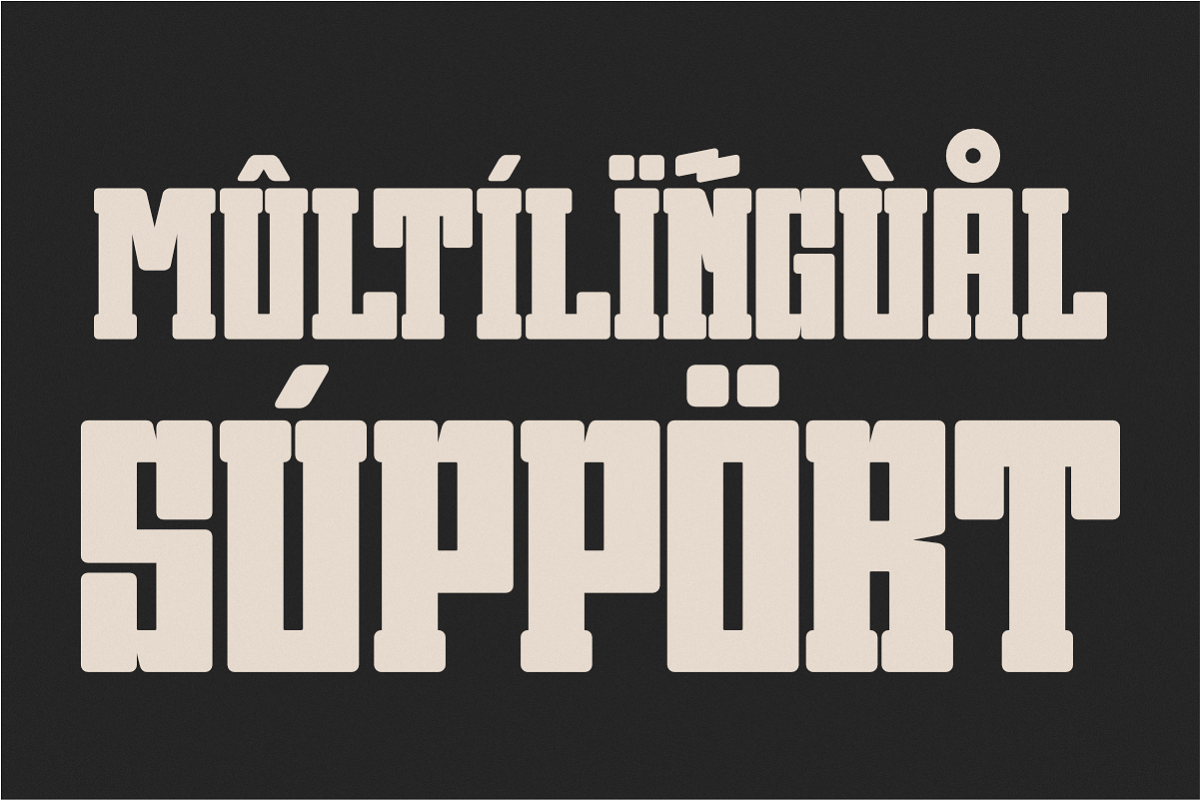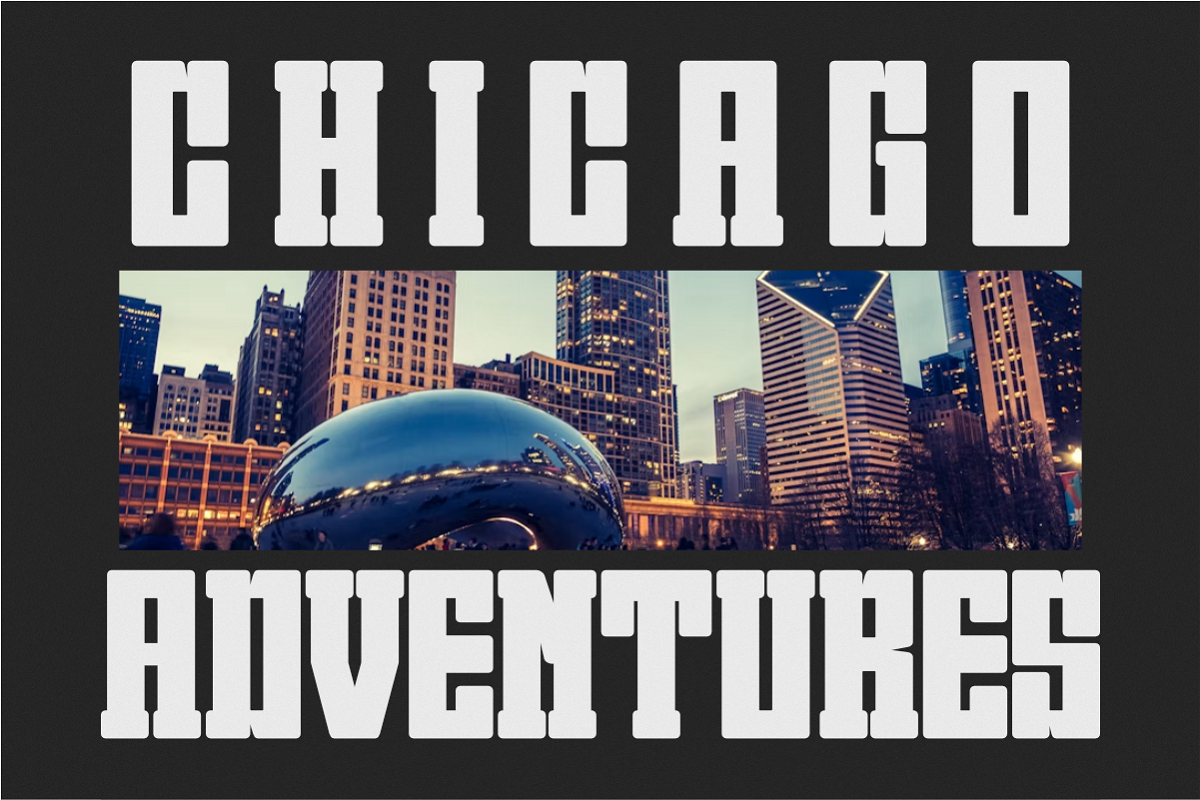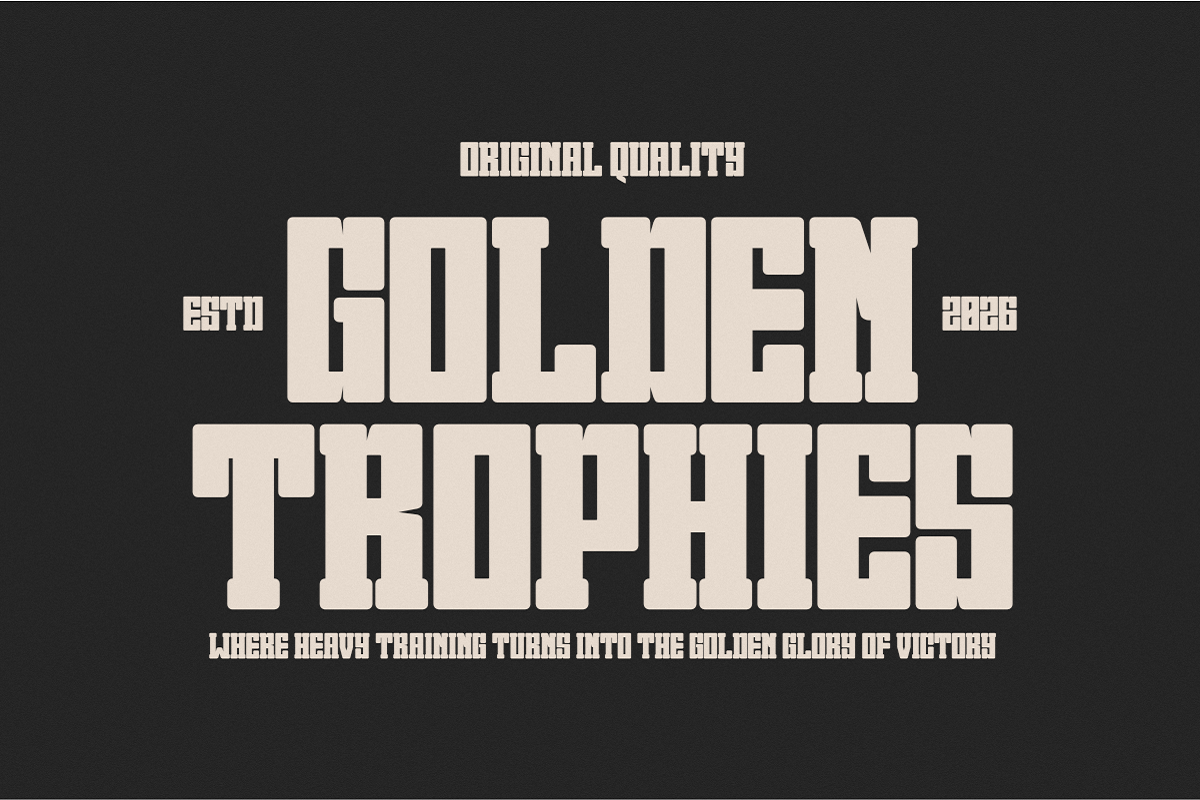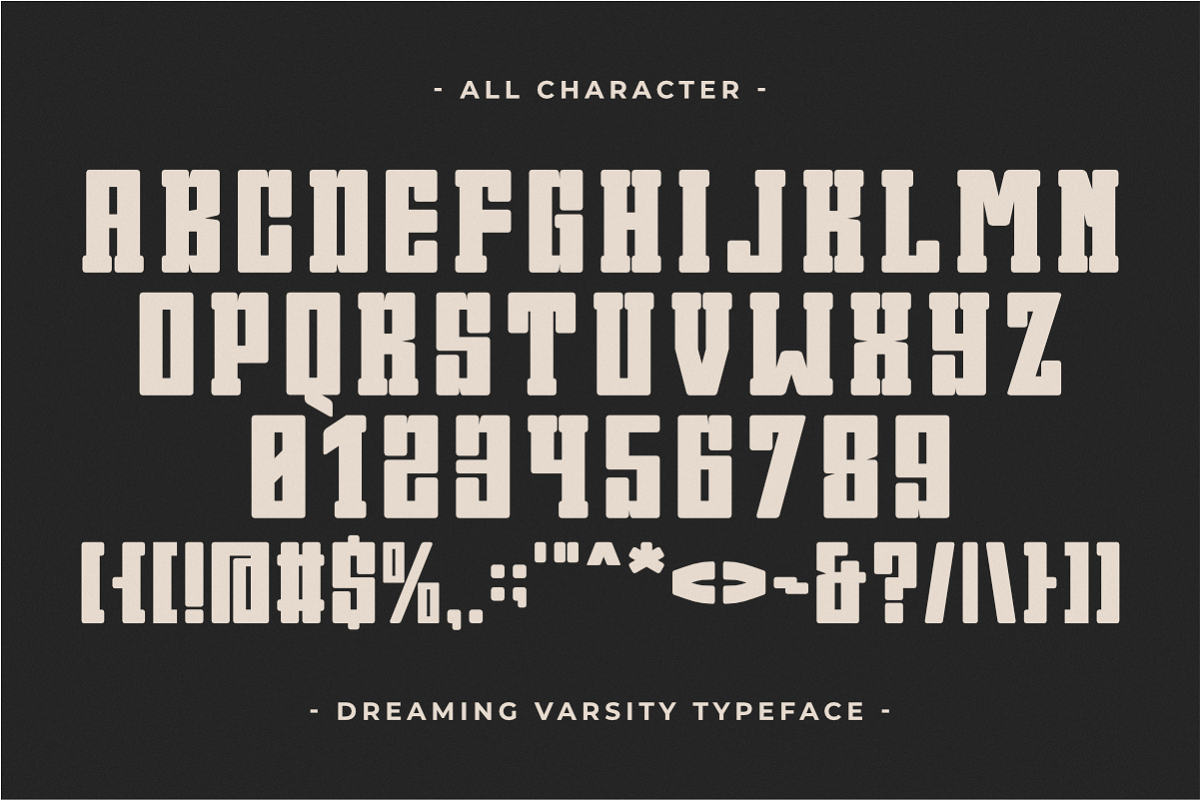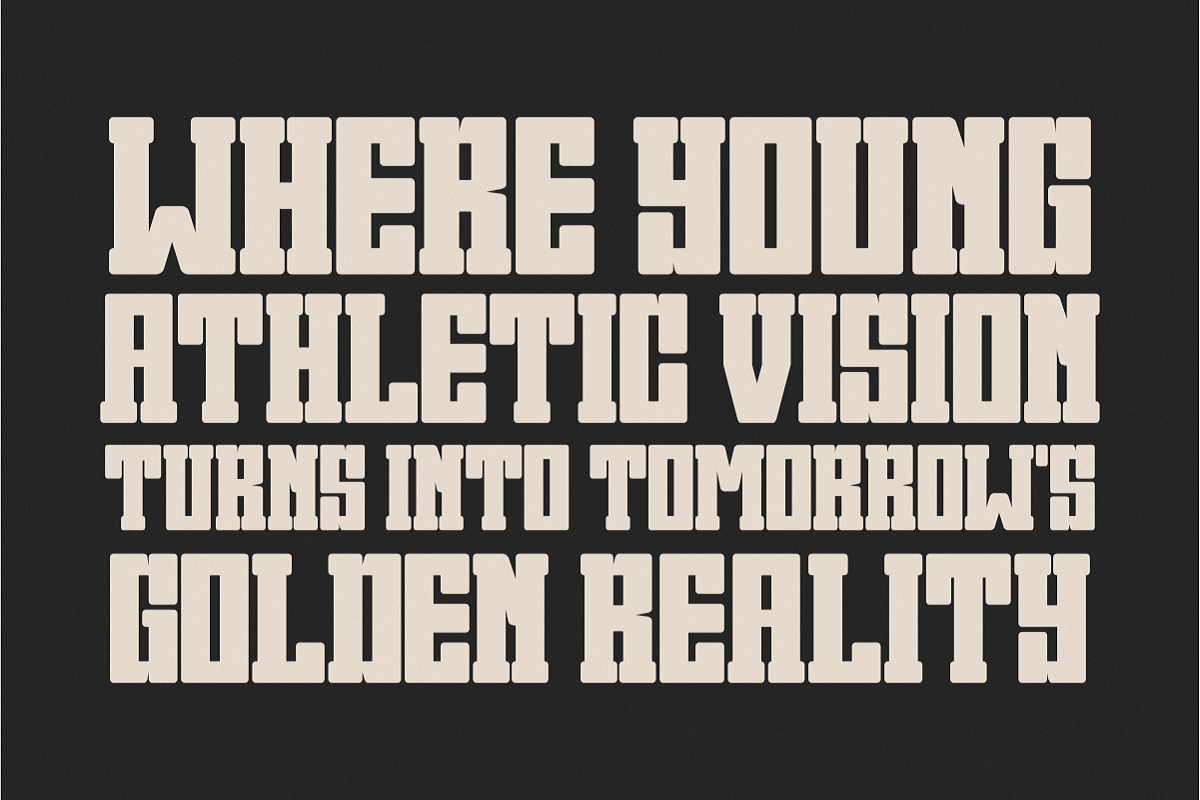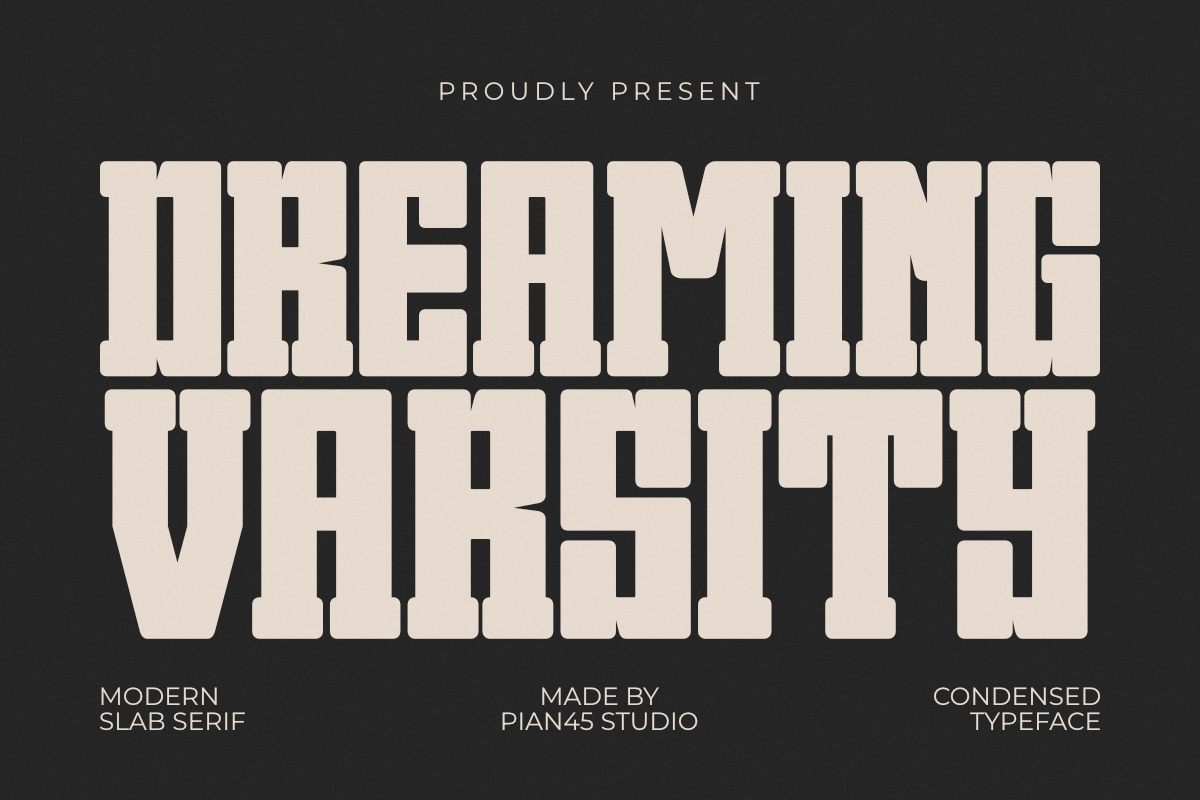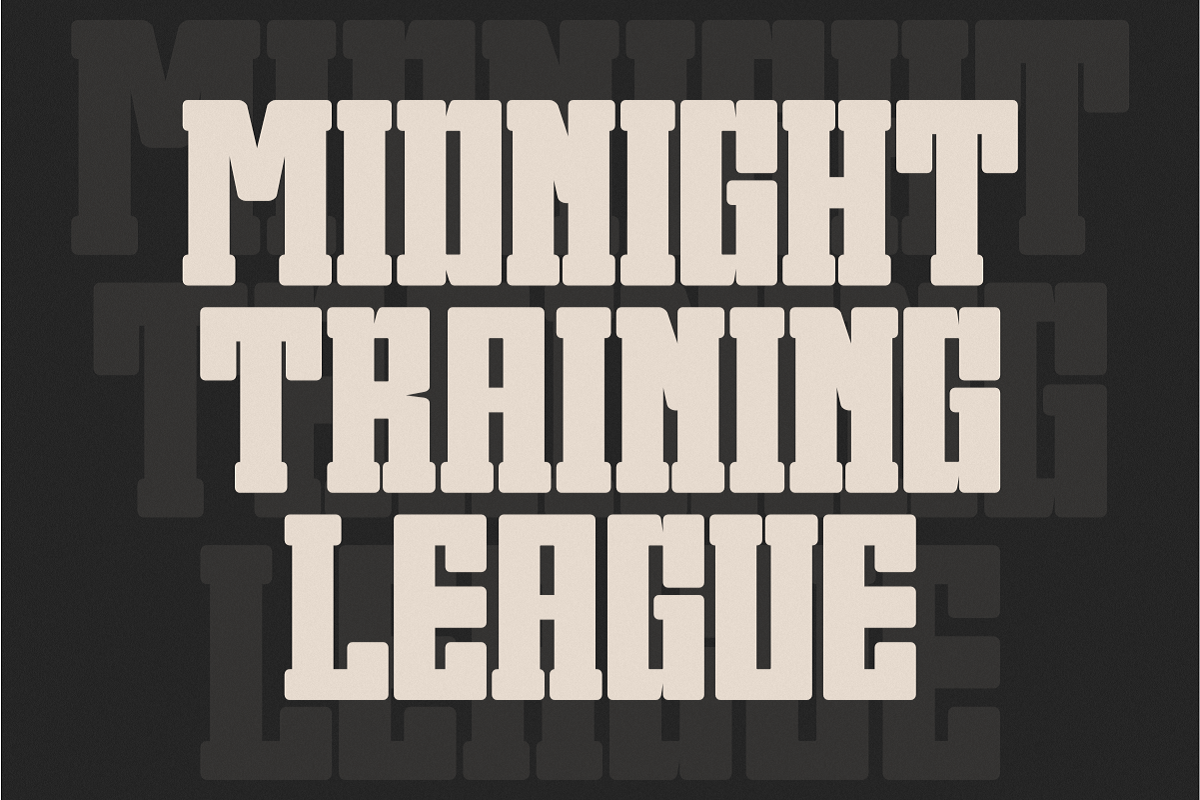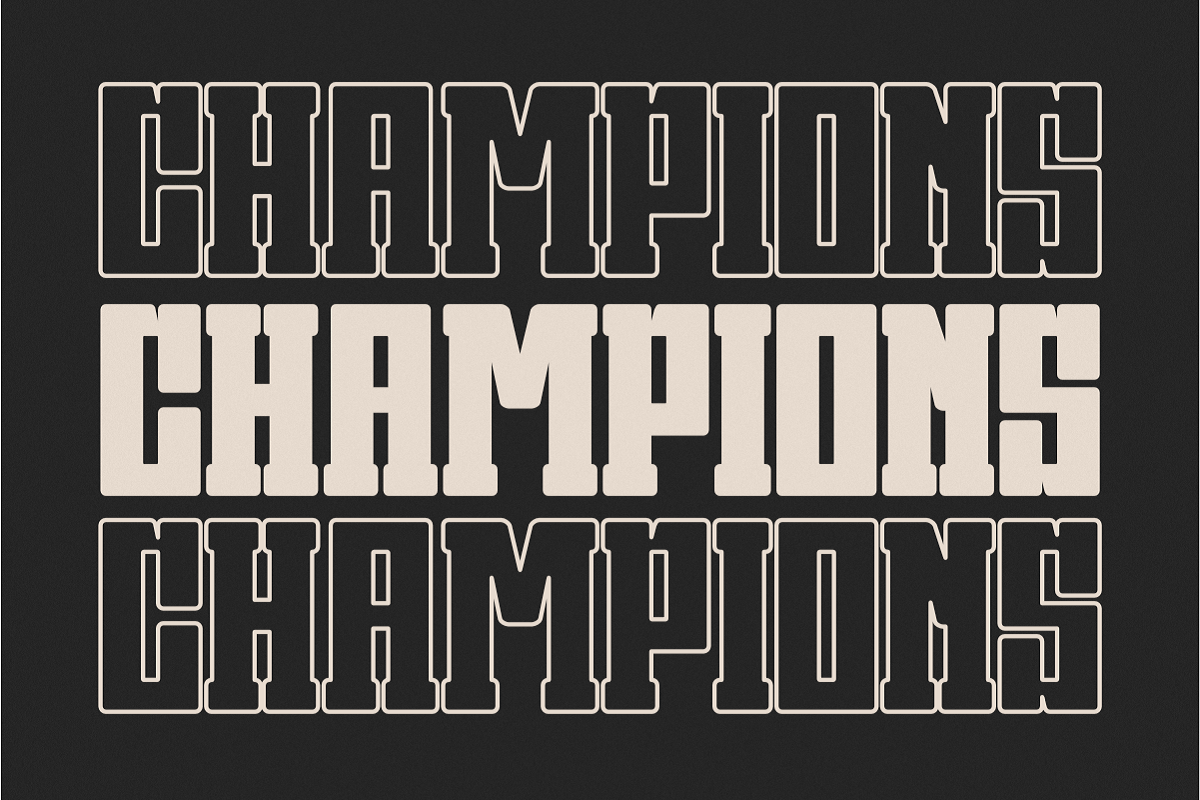
Dreaming Varsity - Condensed Slab
Dreaming Varsity is a striking Modern Condensed Slab Serif font that seamlessly combines classic athletic heritage with contemporary typography trends. Meticulously designed with strong, geometric block serifs and a tall, space-saving condensed typeface structure, this all-caps font is engineered to command attention. It serves as the ultimate choice for sports branding, varsity jackets, high-school team logos, and university-style apparel. Its bold layout and authoritative visual weight ensure maximum impact on event posters, custom merchandise, streetwear lines, and high-visibility digital headlines.